How Display Font Bundles Improve YouTube Thumbnails
The best display fonts bundle for YouTube thumbnails should do more than give you hundreds of attractive letterforms. It should help viewers recognize your message in a fraction of a second, even when the thumbnail appears as a small image on a phone.
That requirement changes how I judge a font collection. A beautiful script may look polished on a poster but turn into an unreadable line at thumbnail size. Meanwhile, a chunky sans serif with open counters, heavy strokes, and slightly exaggerated shapes can remain clear under compression.
That large source file helps, but typography still has to survive when the image is displayed much smaller. Here are the bundles I would consider first.
- Best overall: Colorful Display Font Bundle
- Best for tech and business channels: Modern Display Font Bundle
- Best for beauty and boutique content: Fancy Display Font Bundle
- Best for gaming and sports: Playful Fun Display Font Bundle
- Best for creator brand systems: Special All Collections Font Bundle
How I Picked These
I compared these bundles by small-thumbnail readability, stroke weight, open counters, headline width, stylistic variety, niche fit, review signals, and how easily each collection can support a repeatable YouTube thumbnail system rather than a one-off decorative title.
The Best Display Font Bundles for YouTube Thumbnails
1. Colorful Display Font Bundle
My pick for the best all-around creative bundle
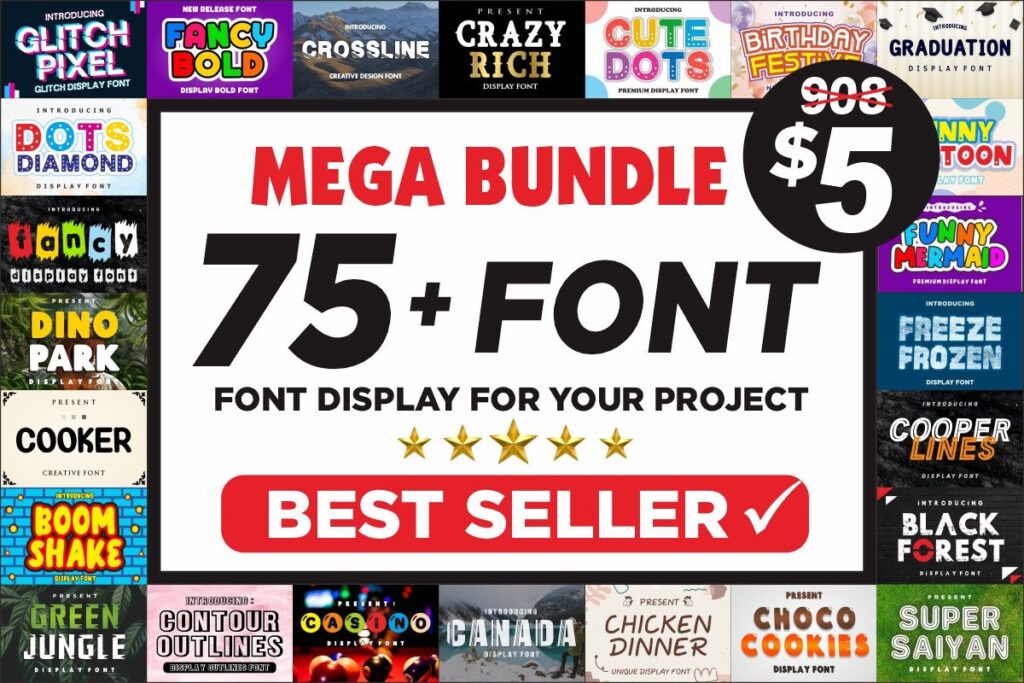
I would start here for a channel that changes visual themes frequently. A craft creator might need bubbly lettering for a holiday project one week and a bold retro headline for a Cricut tutorial the next. A collection this varied makes those shifts easier without forcing every thumbnail into the same mood.
The main risk is inconsistency. When a bundle contains many visually distinct fonts, it is tempting to use a new one for every upload. I would choose two or three families from the collection and assign each a role: one for primary headlines, one for numbers or short emphasis words, and perhaps one decorative accent.
Best for: craft tutorials, colorful lifestyle videos, food content
Key features: 76 display fonts, varied decorative styles, strong review activity
2. Modern Display Font Bundle
My pick for polished, contemporary channels
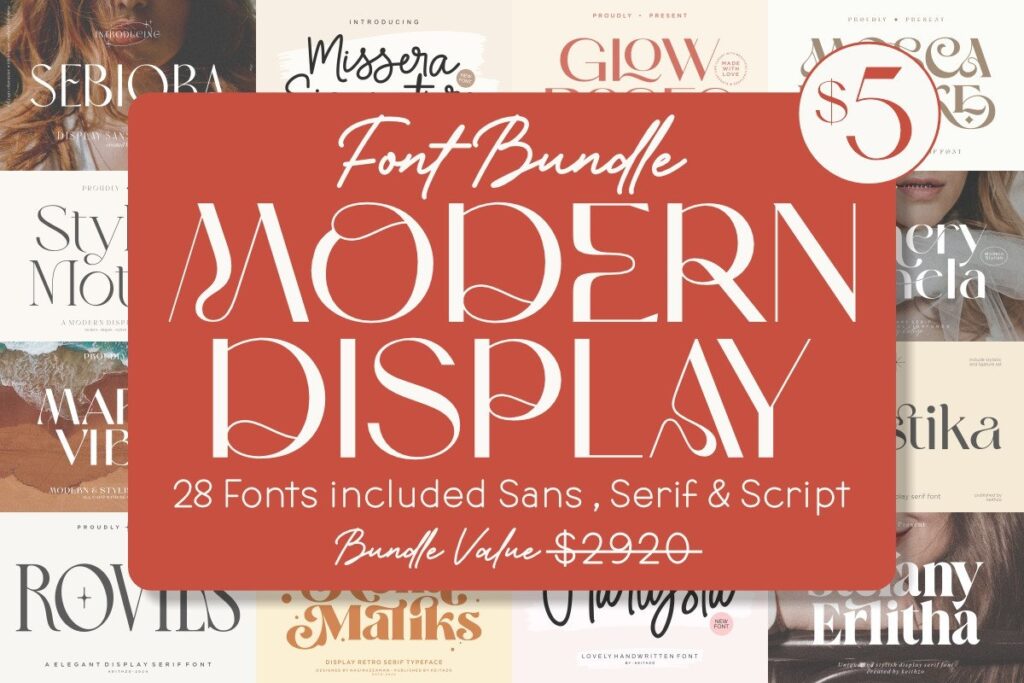
This is the collection I would examine for technology, productivity, design, business, or commentary channels. Modern thumbnail typography usually benefits from cleaner silhouettes and less ornamental clutter. Those qualities give you more freedom to combine the headline with a face, product image, graph, or interface screenshot.
The mixed categories are useful for establishing hierarchy. A strong sans serif can carry the main promise, while a narrower serif or handwritten font can label a series, episode, or recurring format.
I would avoid using the thinnest or most elegant options for the main text. They may look refined at full canvas size but lose definition when the thumbnail shrinks.
Best for: technology, business, productivity, design commentary
Key features: 28 fonts, mixed font categories, modern visual direction
3. Fancy Display Font Bundle
My pick for elegant thumbnail styling
The Fancy Display Font Bundle includes 22 fonts and graphics, with 20 premium fonts and two premium graphic elements listed on the product page. It had a 5.0 score from 36 reviews when researched.
This is a more decorative option than my first two picks. I like it for beauty, fashion, wedding, luxury DIY, home décor, and boutique-business channels where the typography needs personality without feeling childish.
Fancy display type requires restraint in thumbnails. Use it for a short phrase such as “Luxury Look,” “Bridal Trends,” or “Before & After.” Longer wording may expose complicated letterforms, uneven spacing, or flourishes that fight with the image.
My preferred approach would be to pair one decorative font from this bundle with a plain, heavy sans serif. That keeps the focal word expressive while allowing the rest of the message to remain instantly readable.
How can I tell whether a thumbnail font is readable?
Export the finished thumbnail and view it at a small size on both a phone and desktop screen. Check whether every word can be understood immediately without zooming. Also inspect letters with enclosed spaces, since those areas may close after outlines, shadows, or compression are applied.